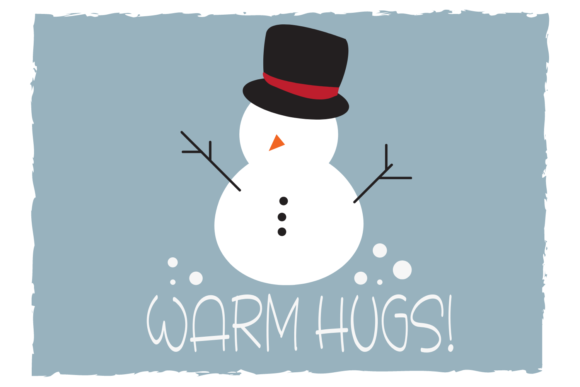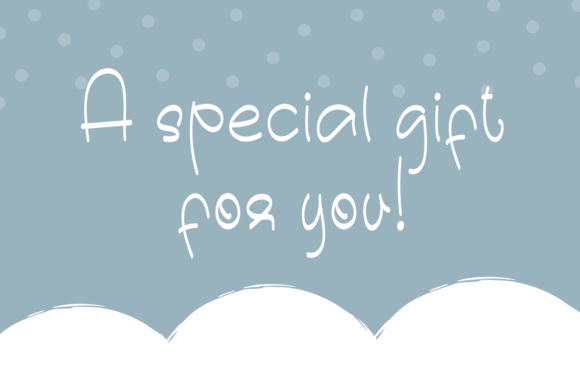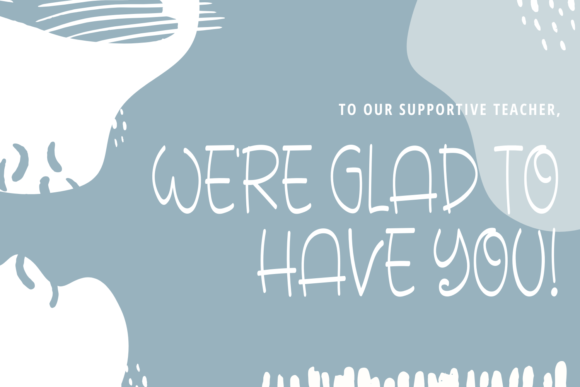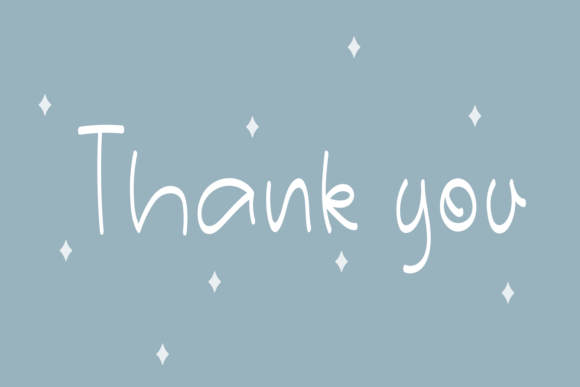
Snowman Font
About Snowman Font
Snowman feels equally charming and elegant. It can be used for various purposes such as logos, wedding invitations, headings, t-shirts, letterhead, signage, labels, news, posters, badges and so much more.